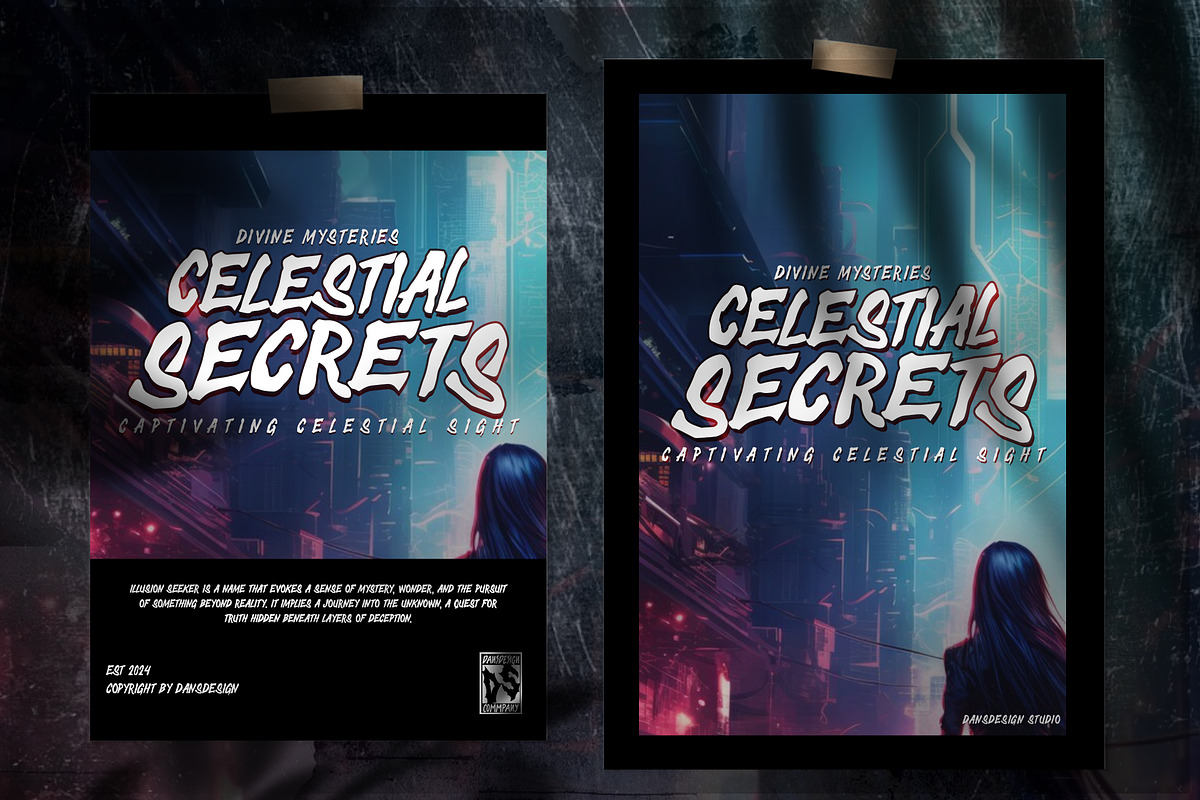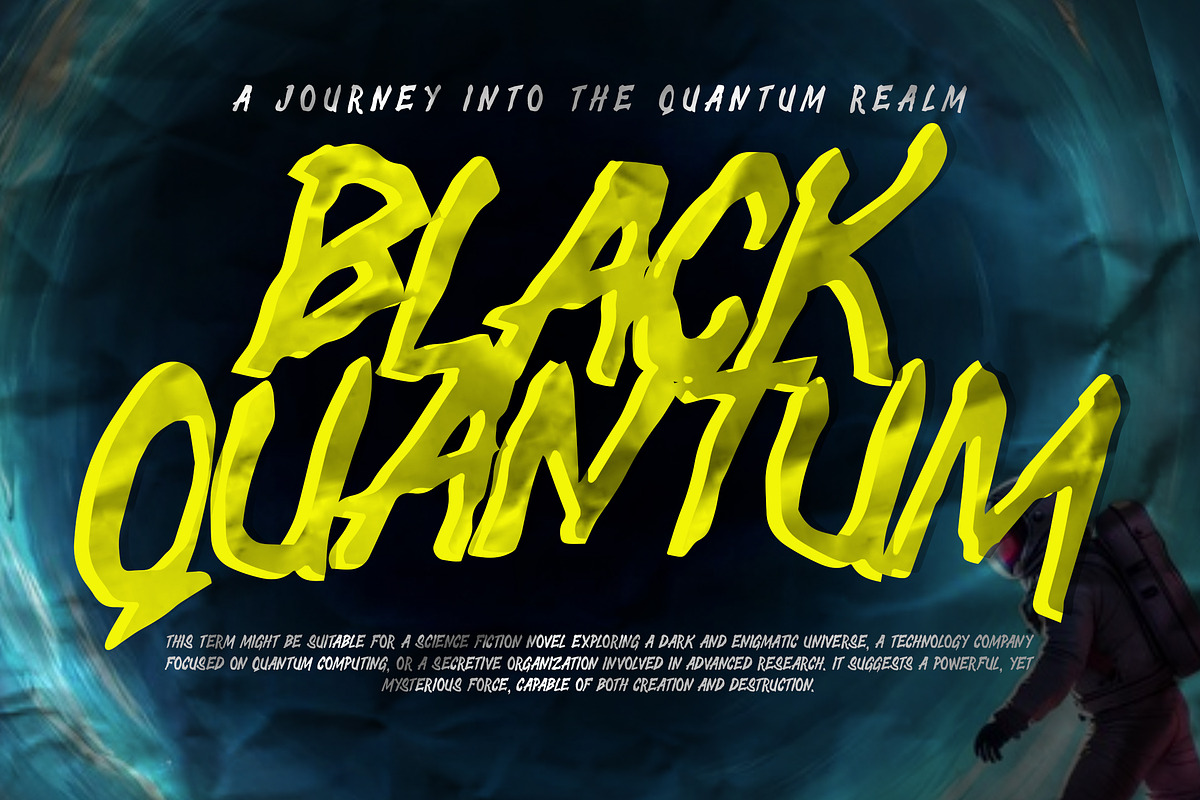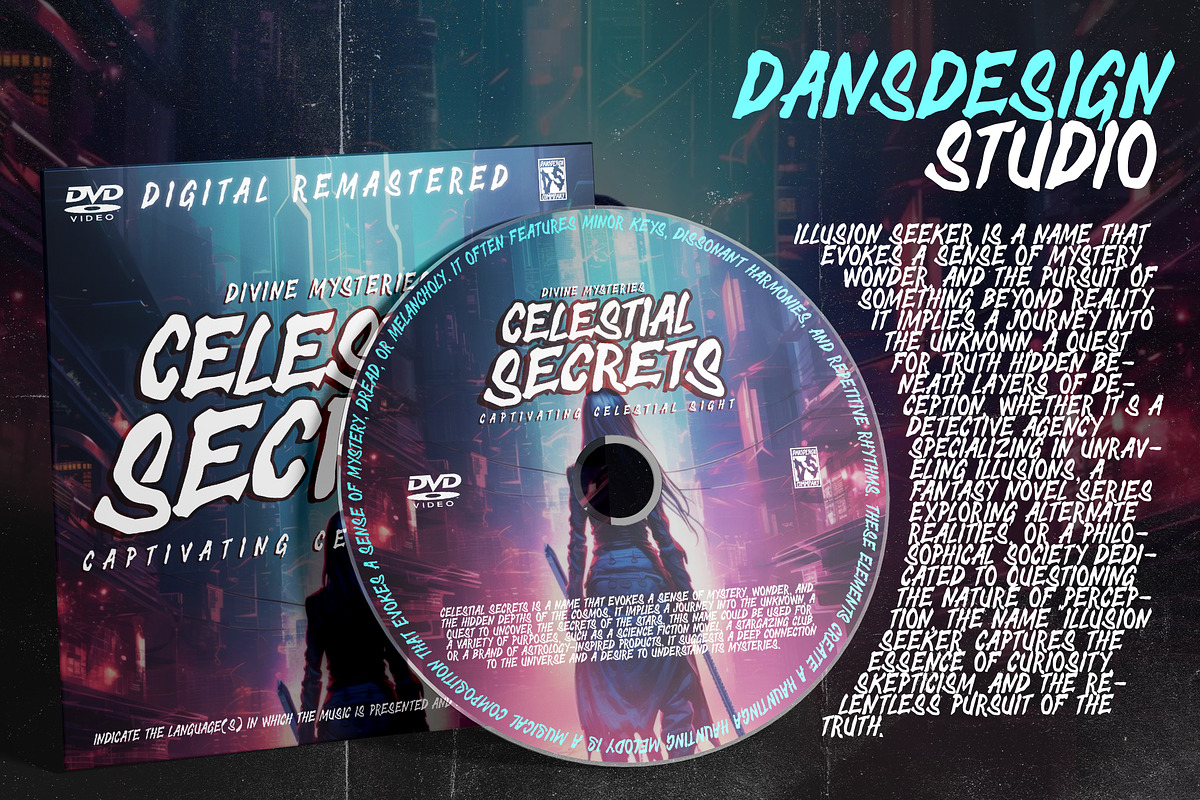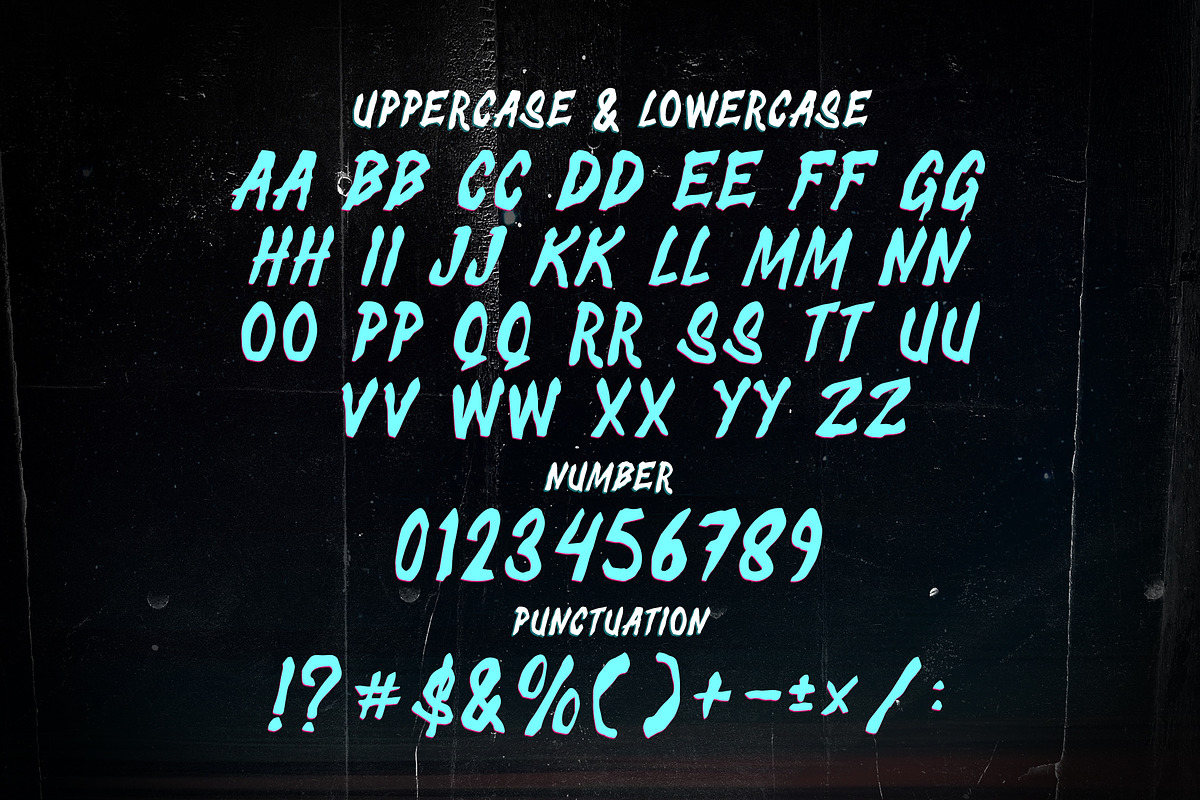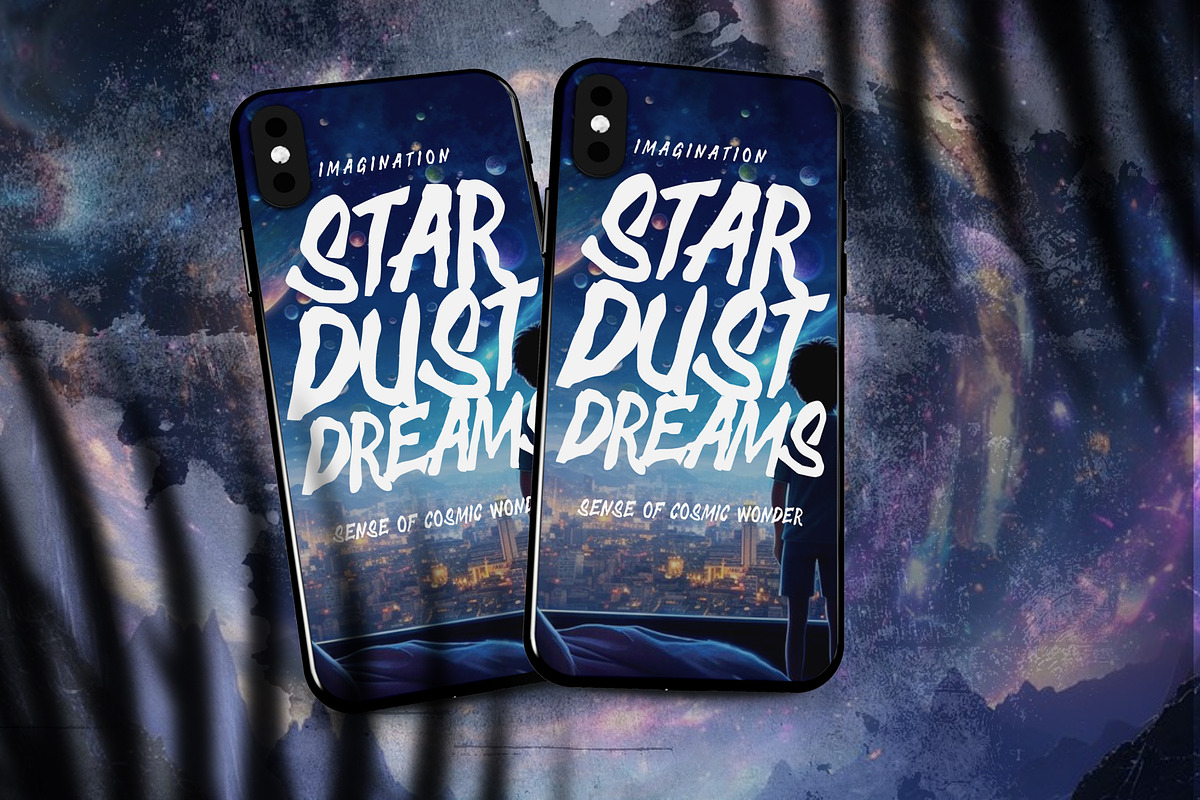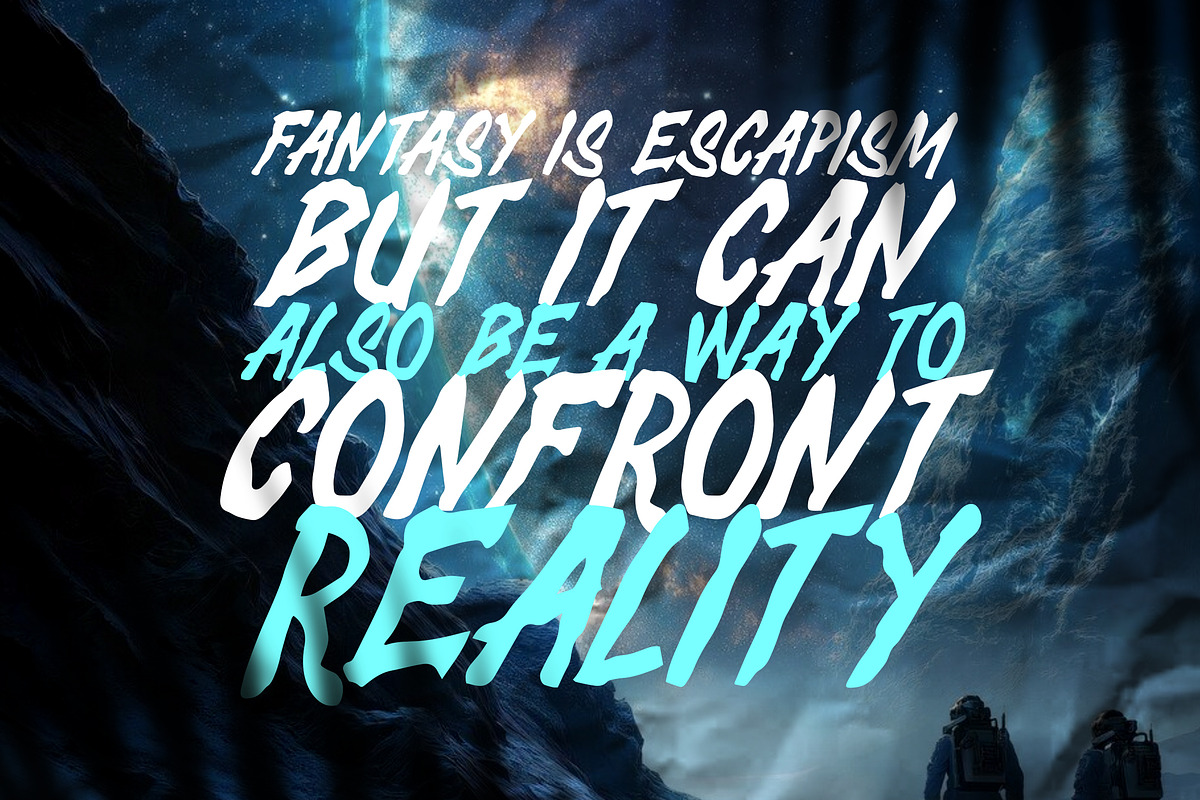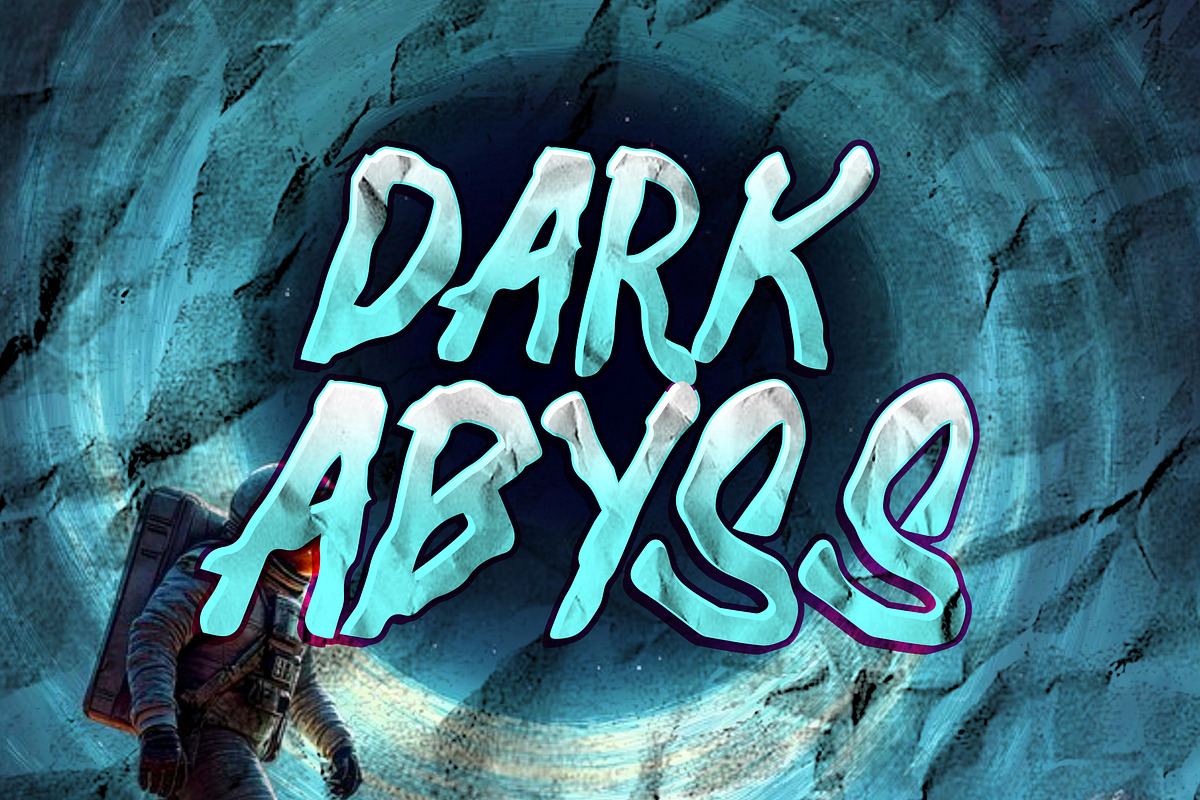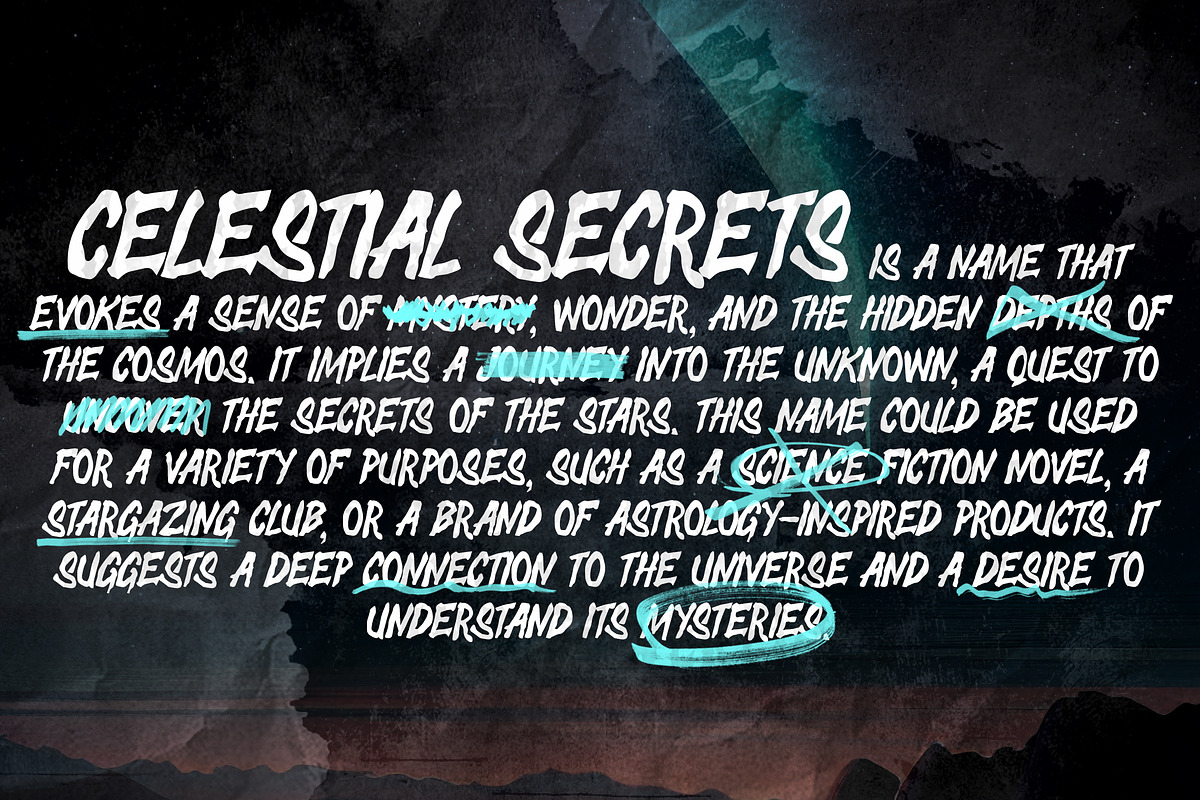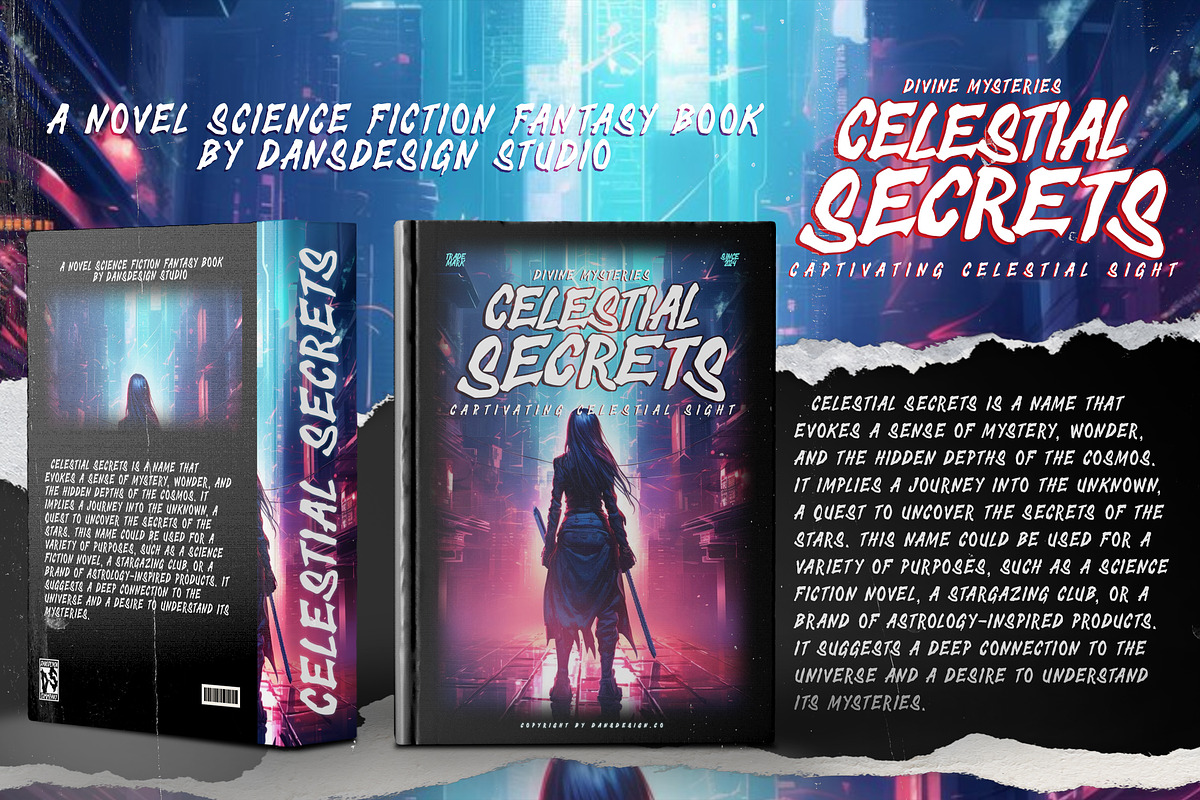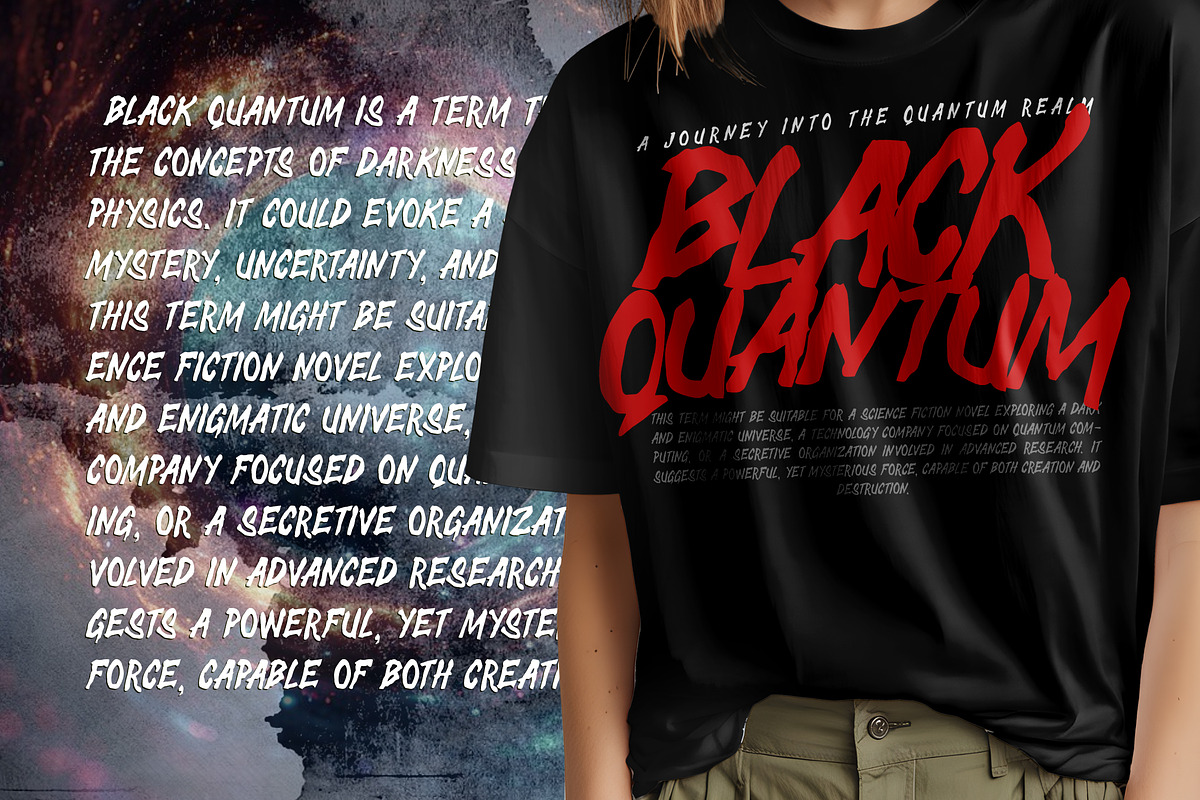
Zenith Hand Drawing Graffiti Marker
Zenith Hand Drawing Graffiti Marker Y2k Display is a distinct, highly detailed. Marker Display Font. It would make a great choice for exquisite retro-urban designs, business branding, logos, Apparel designs, and more.